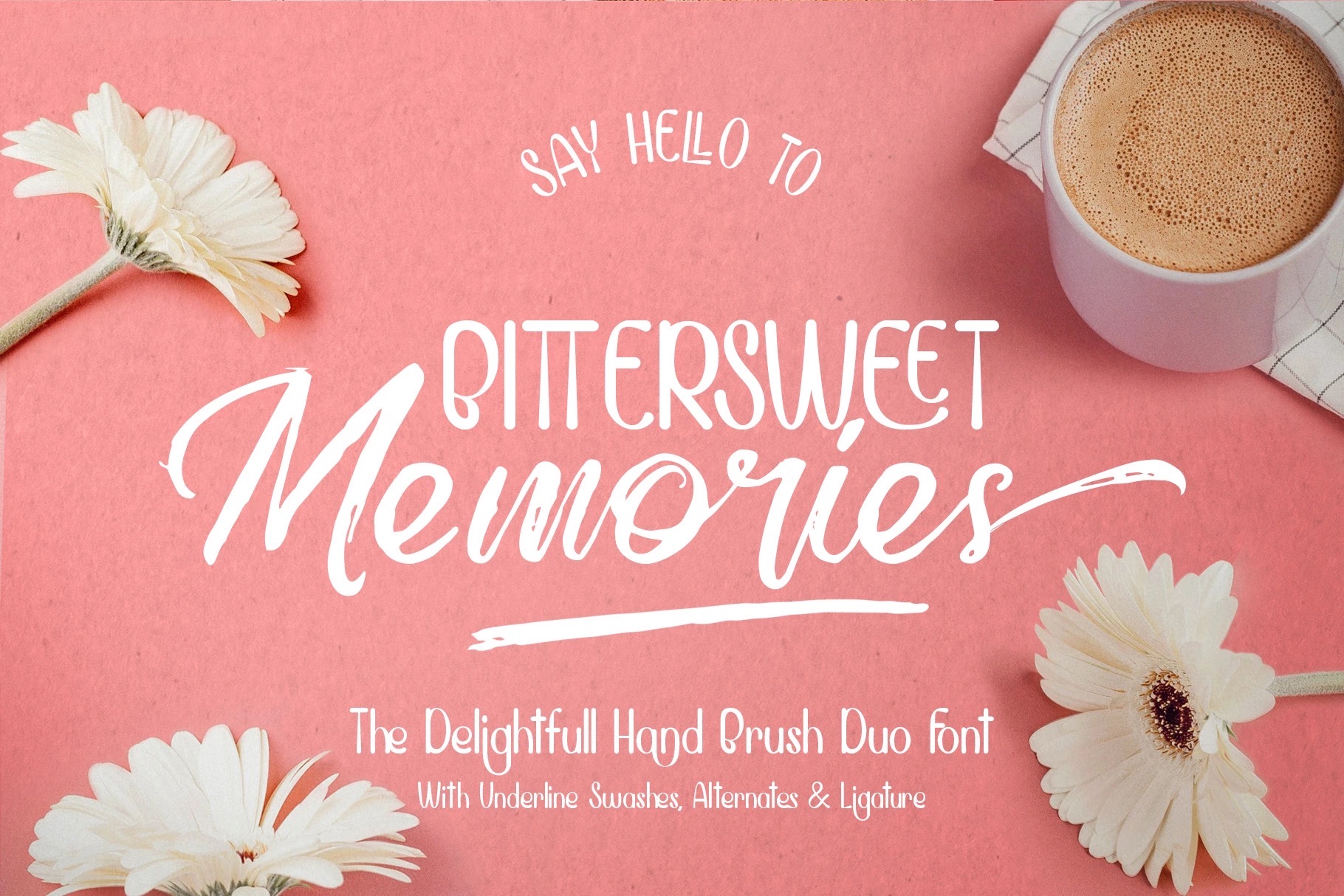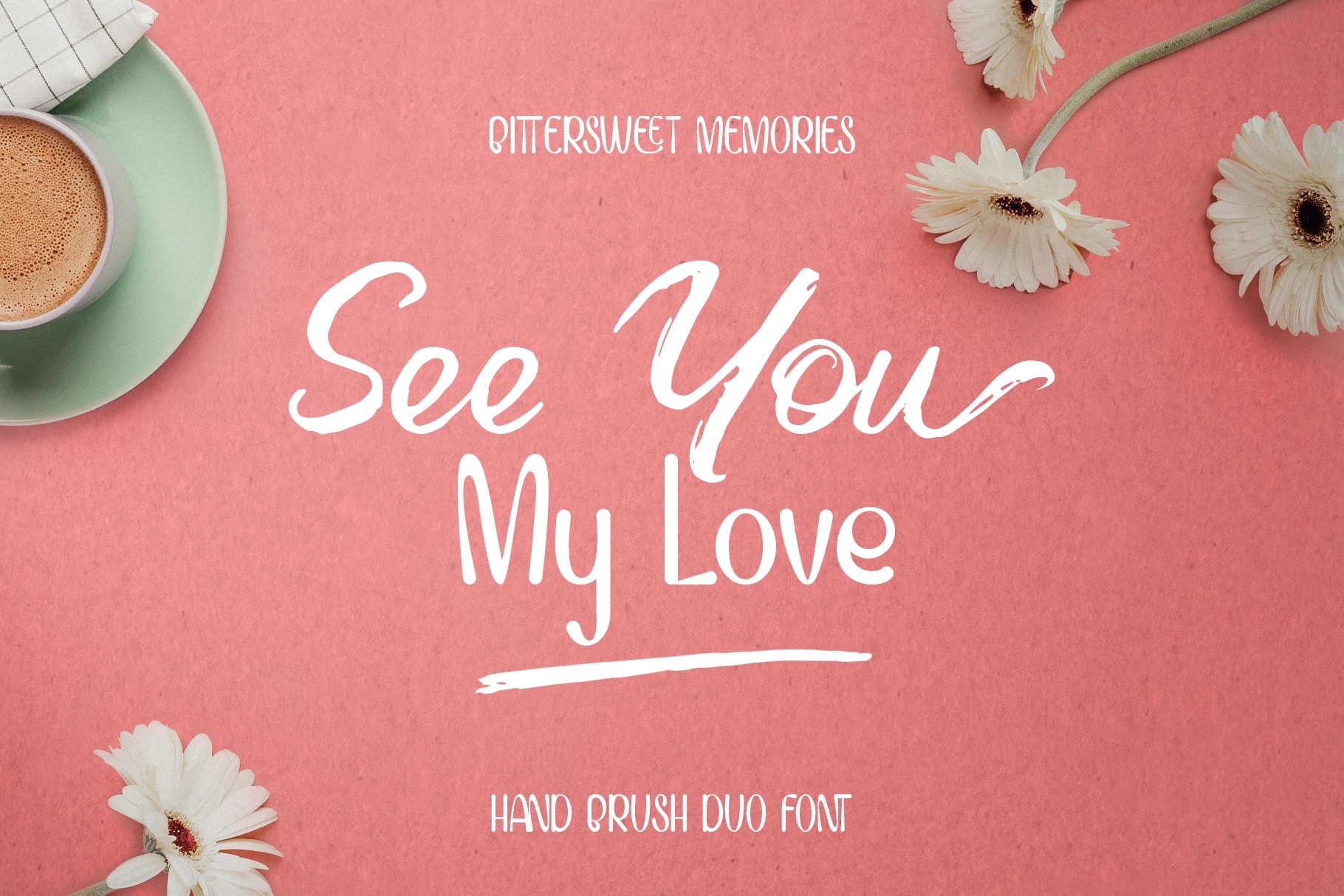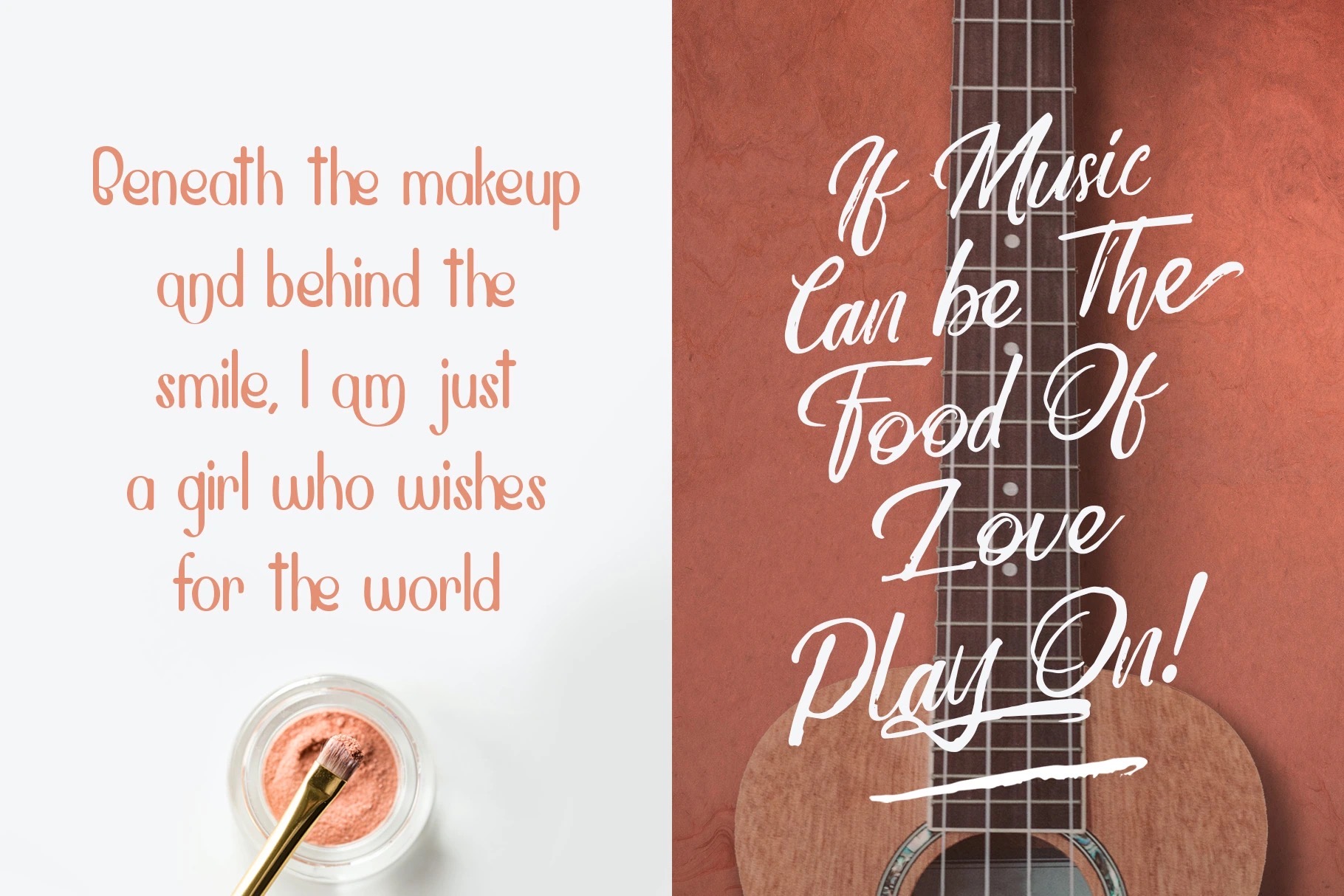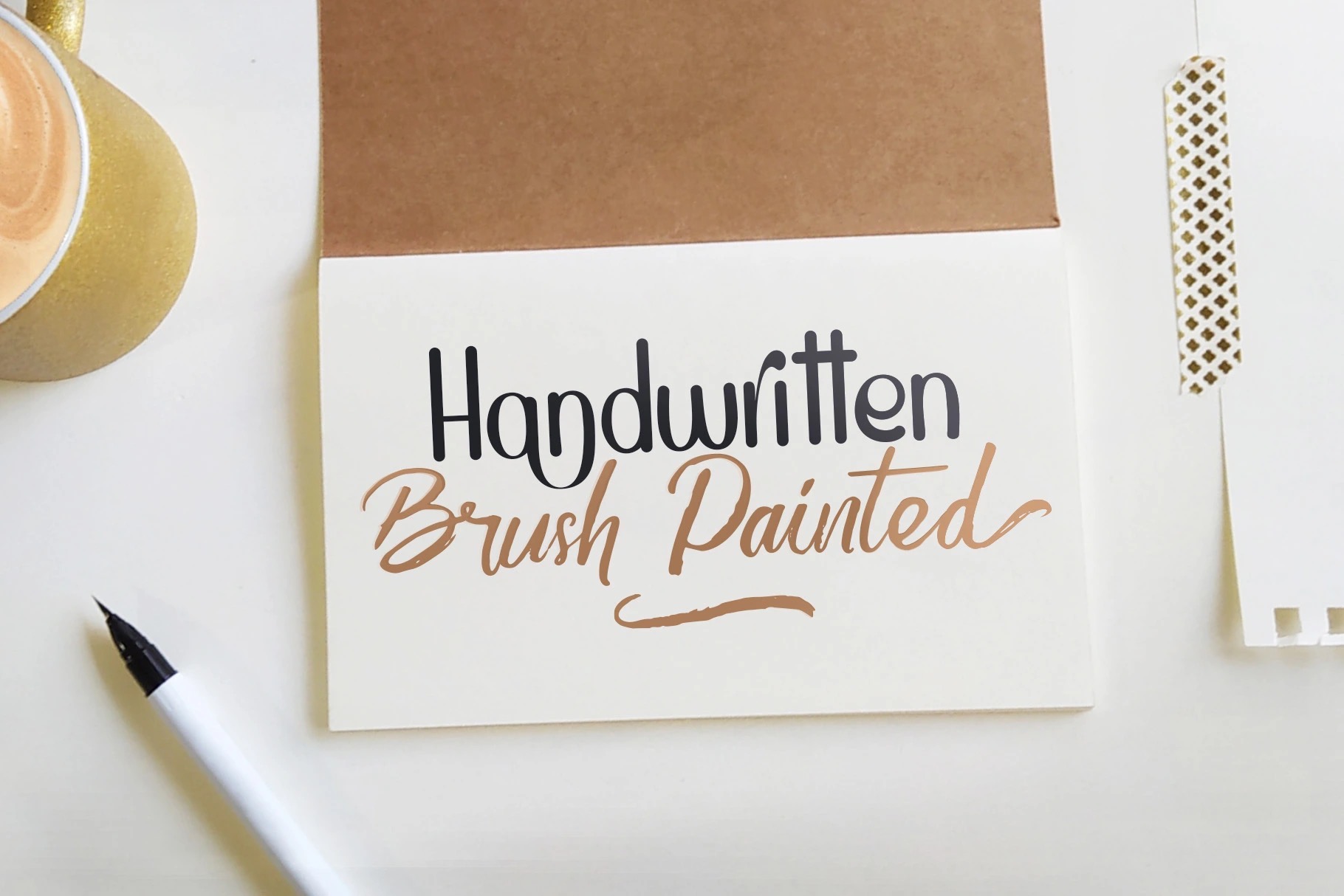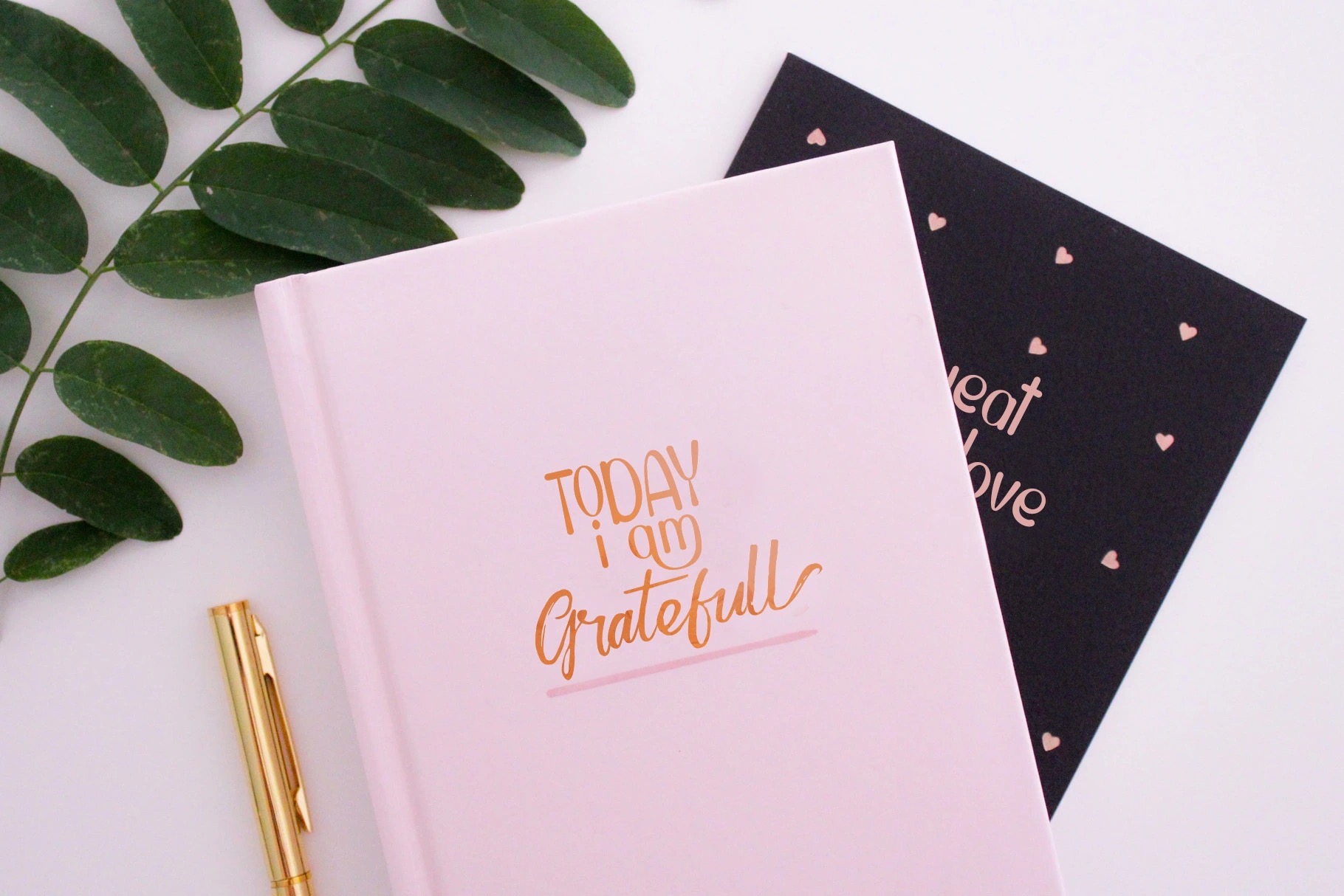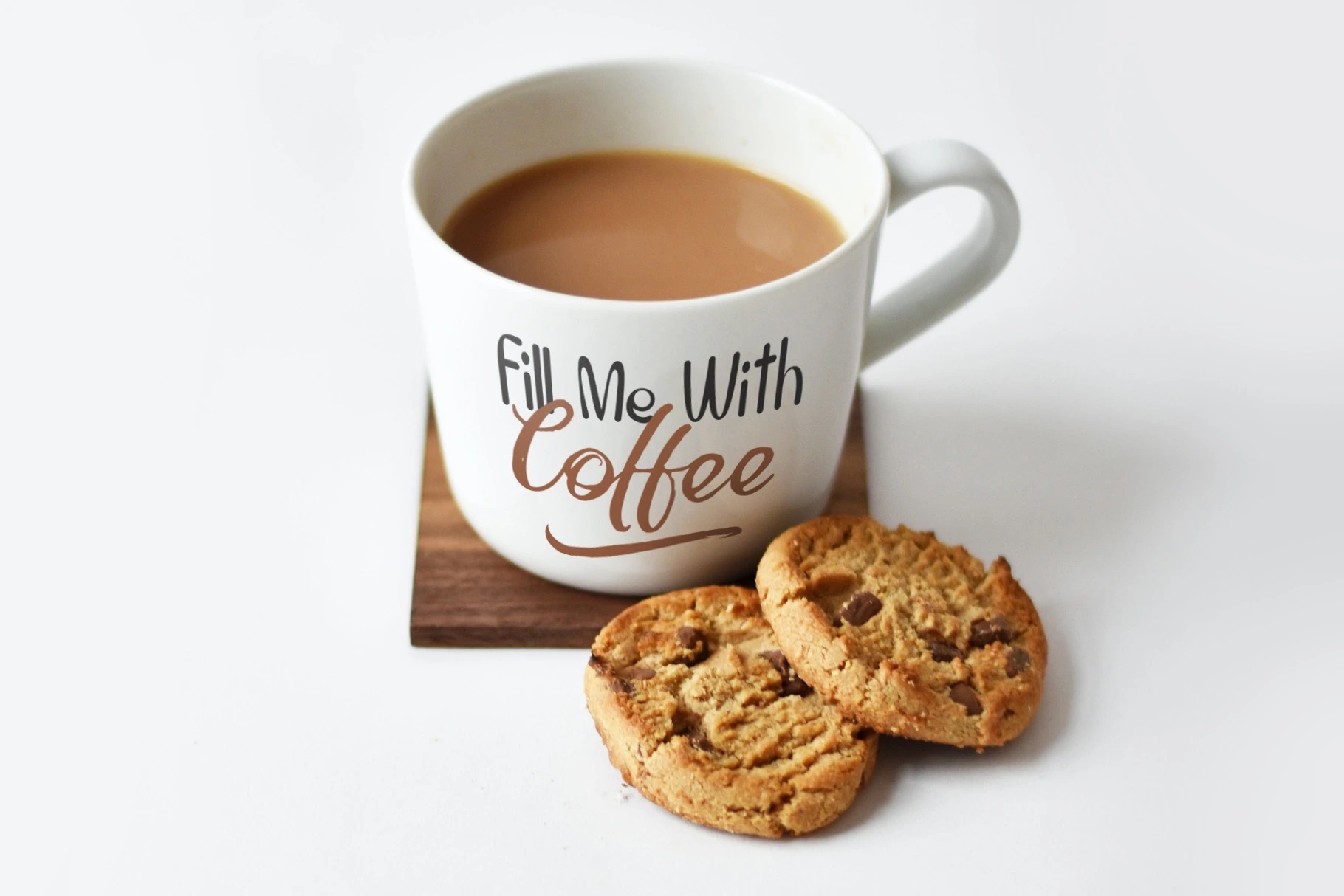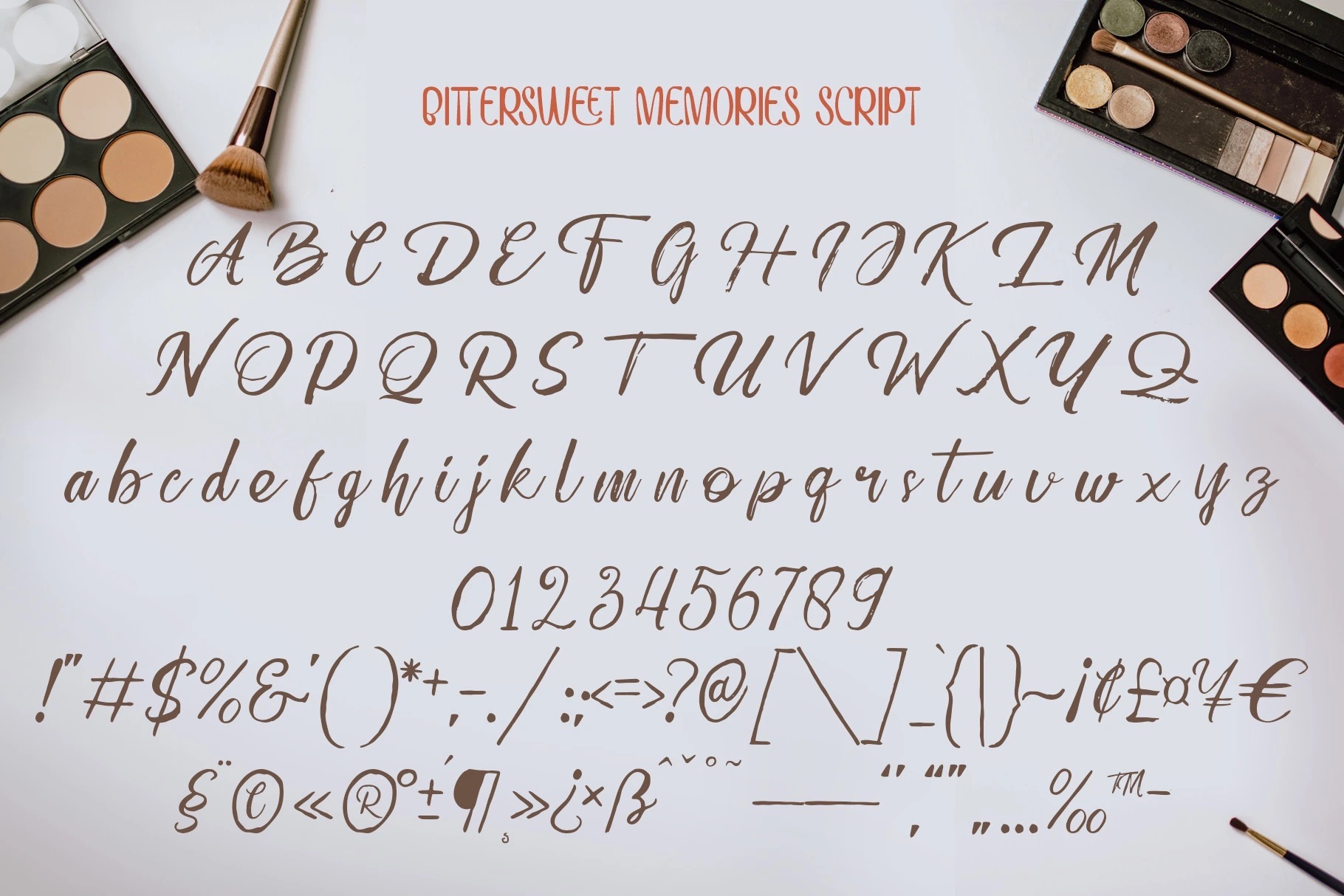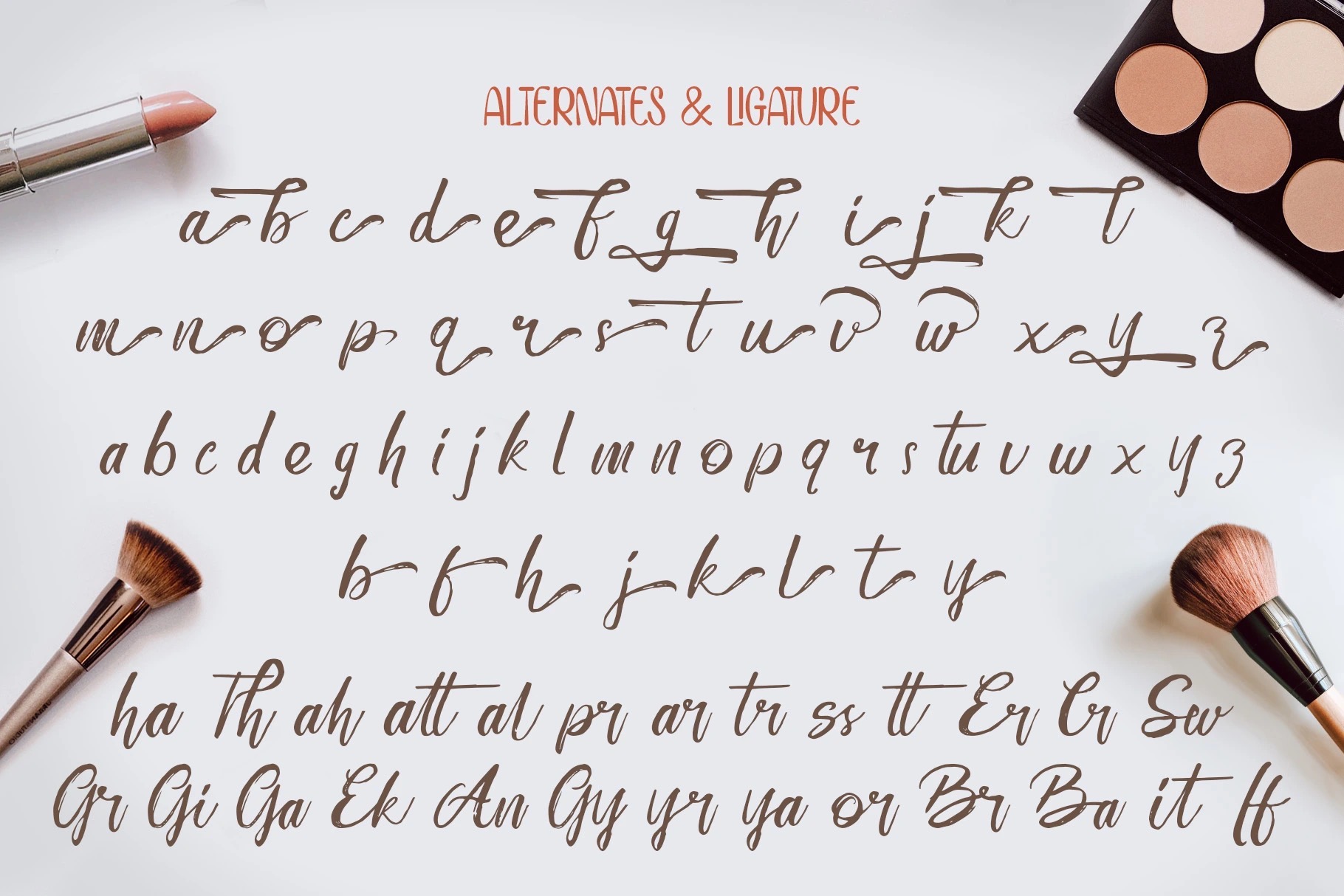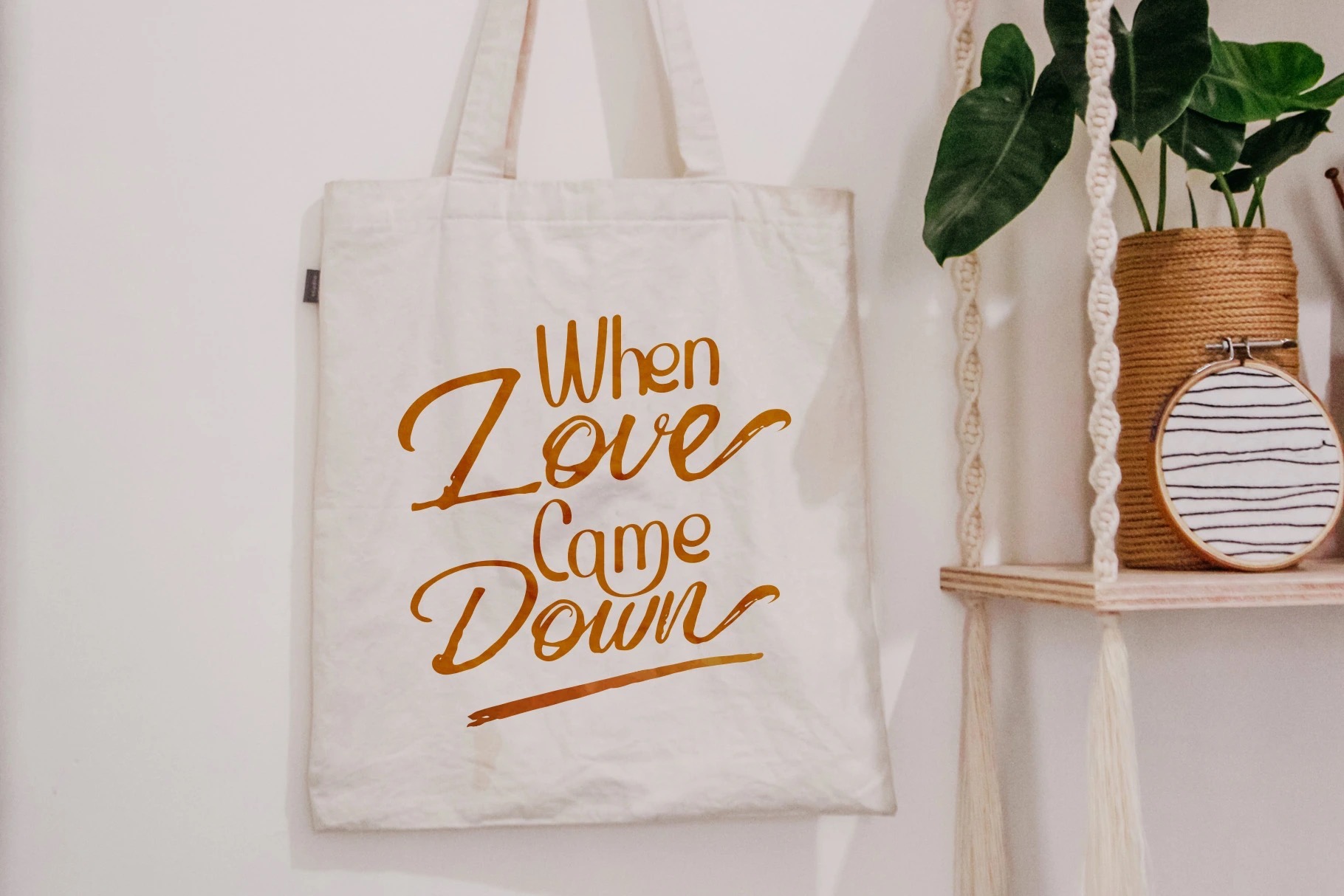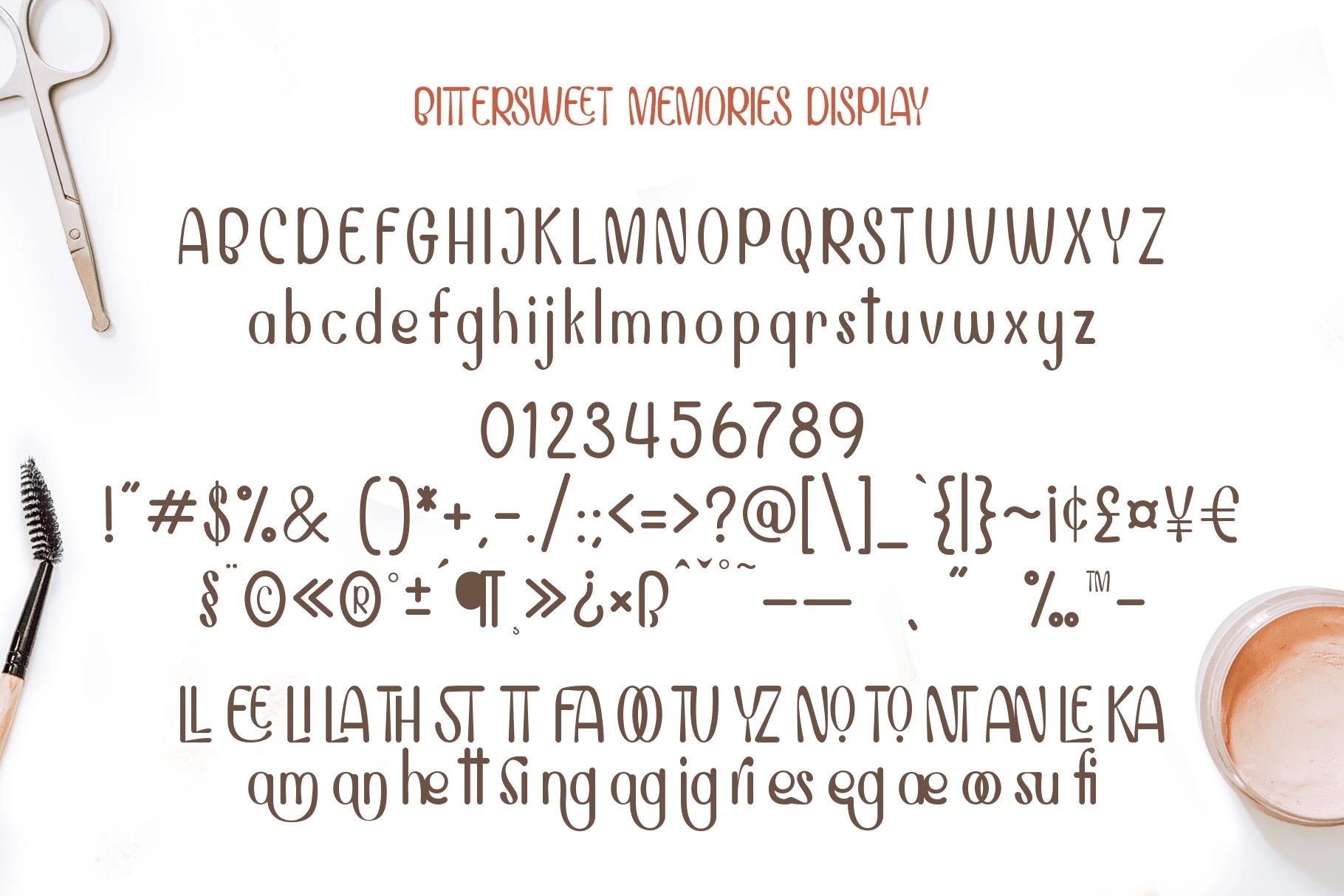
Bittersweet Memories
Introducing “Bittersweet Memories” The Brush font duo. A perfect combination of cute display & Hand painted script font. Powered with opentype features; alternate characters & ligatures. Underline swashes also included.
• A – Z set (Uppercase & Lowercase)
• Number
• Punctuation
• Alternates
• Ligatures
• Multilingual